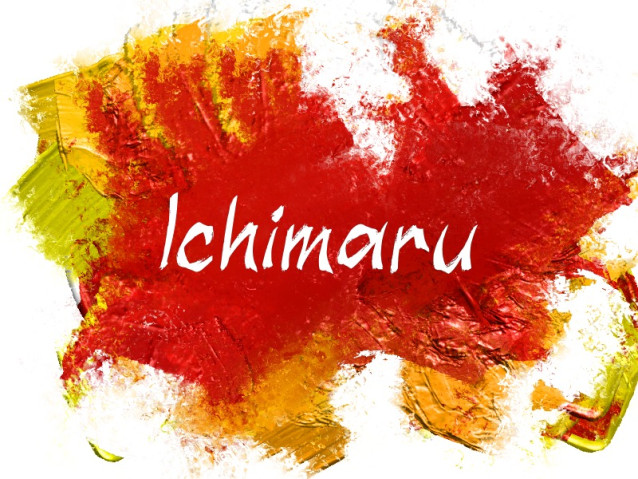
i Ichimaru Font
i Ichimaru Font is a display font with japan brush style. It’s suitable for social media, music covers, branding, products, handwritten, and so on. Add it to any of your designs and enjoy the results!